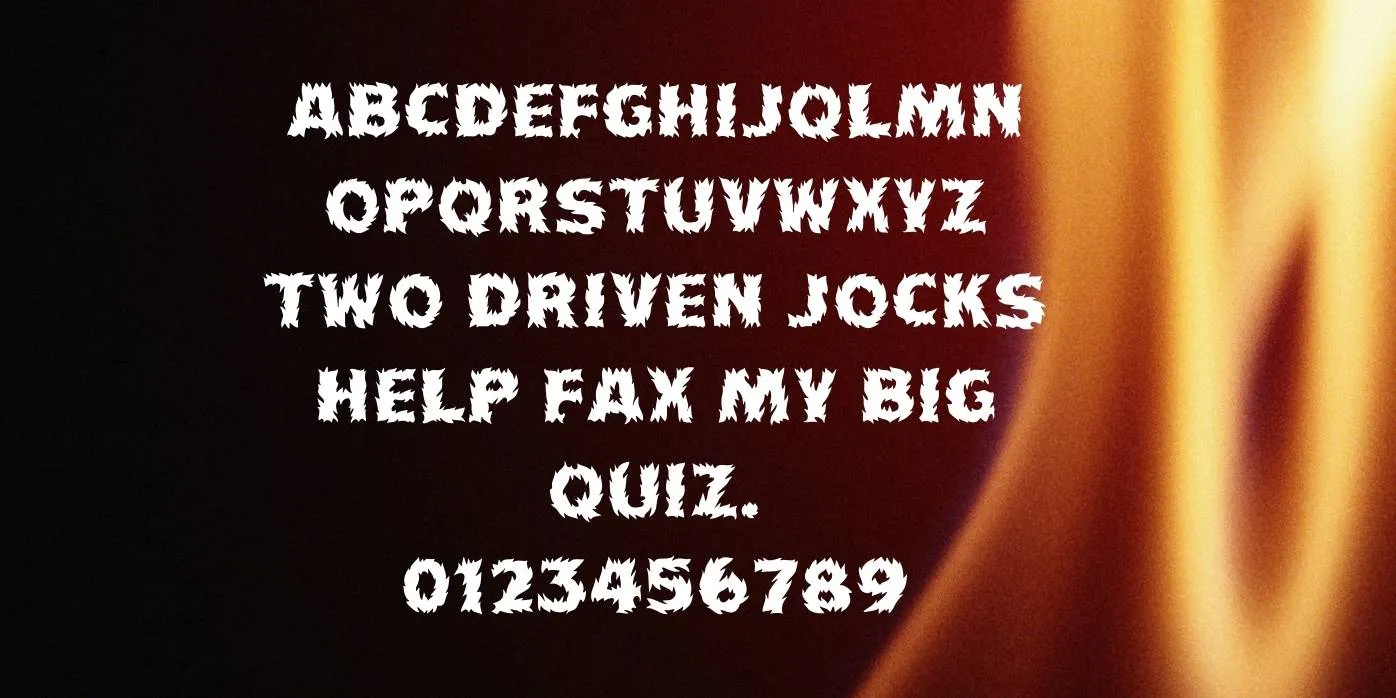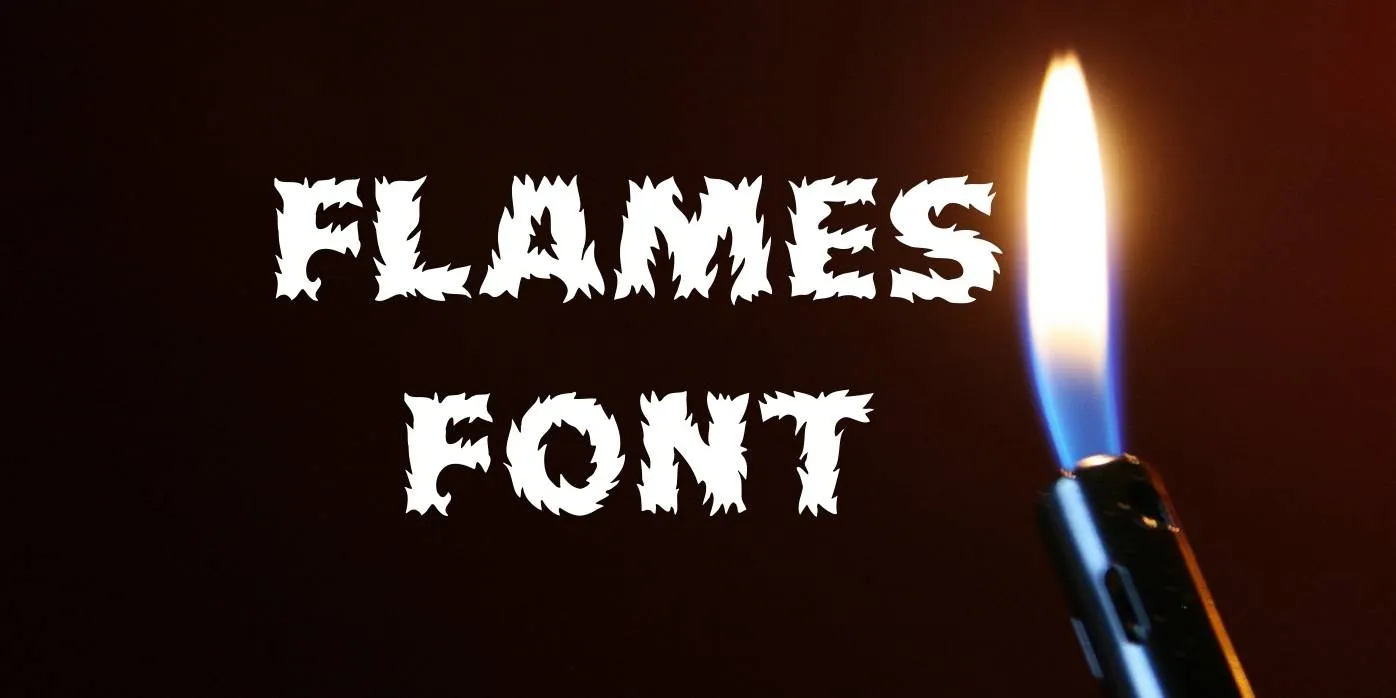
Flames Font
Lets we present a classic and stylish font that was known as Flames Font. This marvelous font was designed by intelligent designer Rick Mueller. This font family belongs to the Fancy typeface. This font was influenced by Alfred Rollers.
Frequently this awesome and staggering font is best for Adobe Photoshop, MS Word, and much more.  For_European albums and different musical covers, this classy font was mostly used in the 60s and 70s. This staggering typeface comes in various famous Glyphs more than 91 and different unique characters. Its common characters are Numbers, icons, and symbols. These unique characters and Glyphs increase its popularity and performance.
Different companies use this modern font in their projects in order to increase their project value and performers. Paulistana Deco Font is similar to this good font family that helps in your various types of designing projects and functions. After Using this font in your projects you notice the very fastest success.